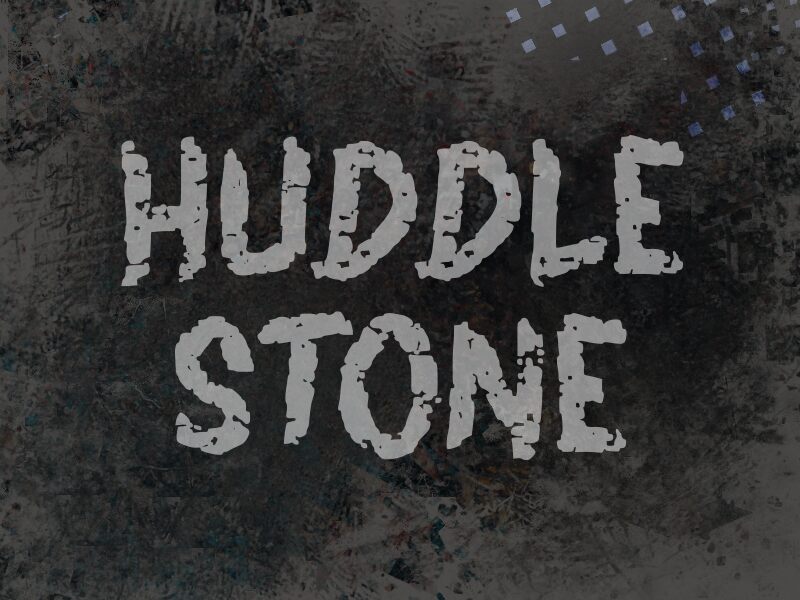
HUDDLE STONE
Huddle Stone font by wep is a grungy, bold free font with irregular edges. Letter thickness is uneven in a playful yet aggressive way; the distressed look of each letter delivers an exciting visual effect. The typeface style mimics chalk and trash writing which makes it quite special.
Fun and personality along with informality are all be conveyed using this font in your recreation designs, children-related projects, comic books or comic covers, posters, greeting cards... Use it on digital apps or websites for a casual user experience.